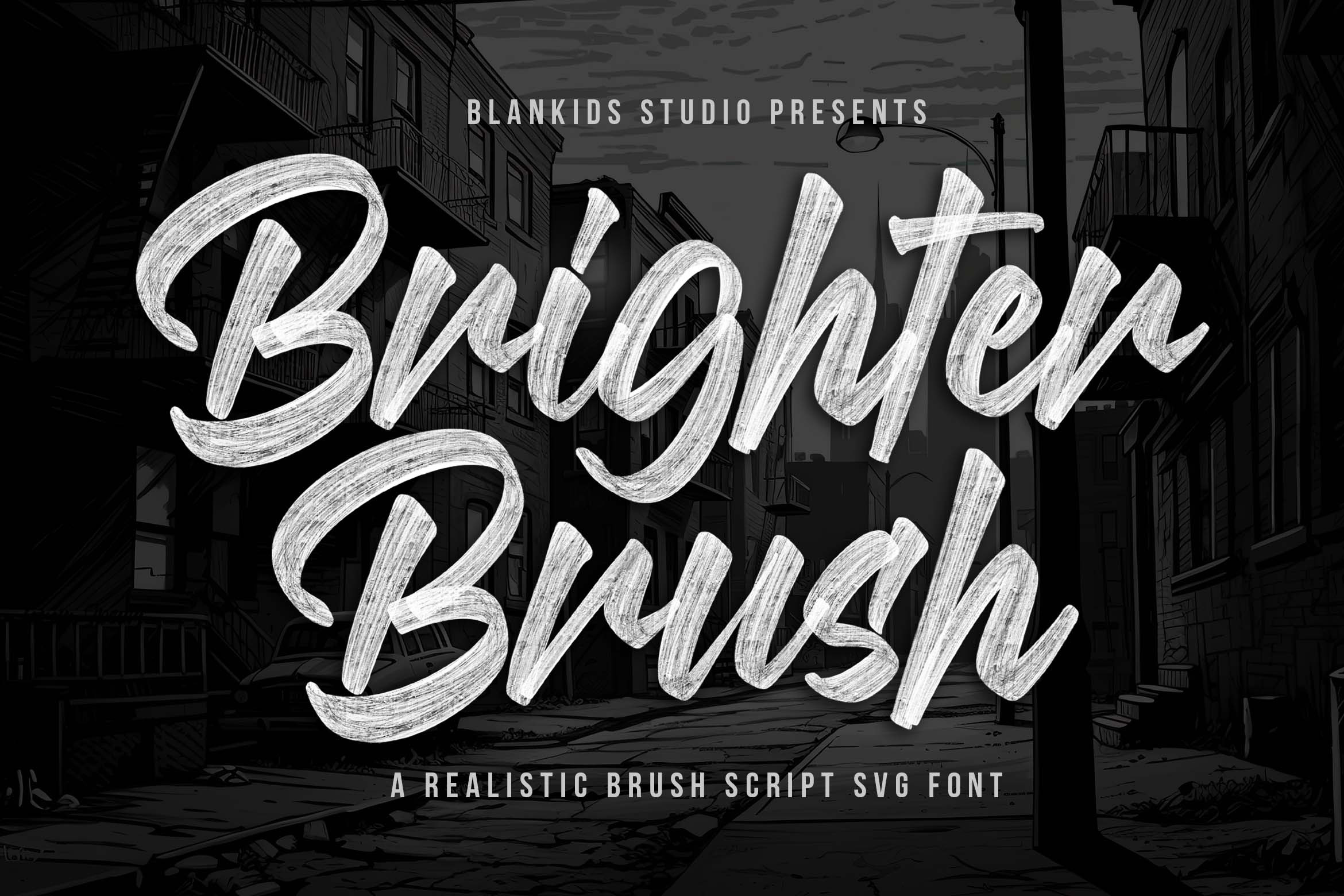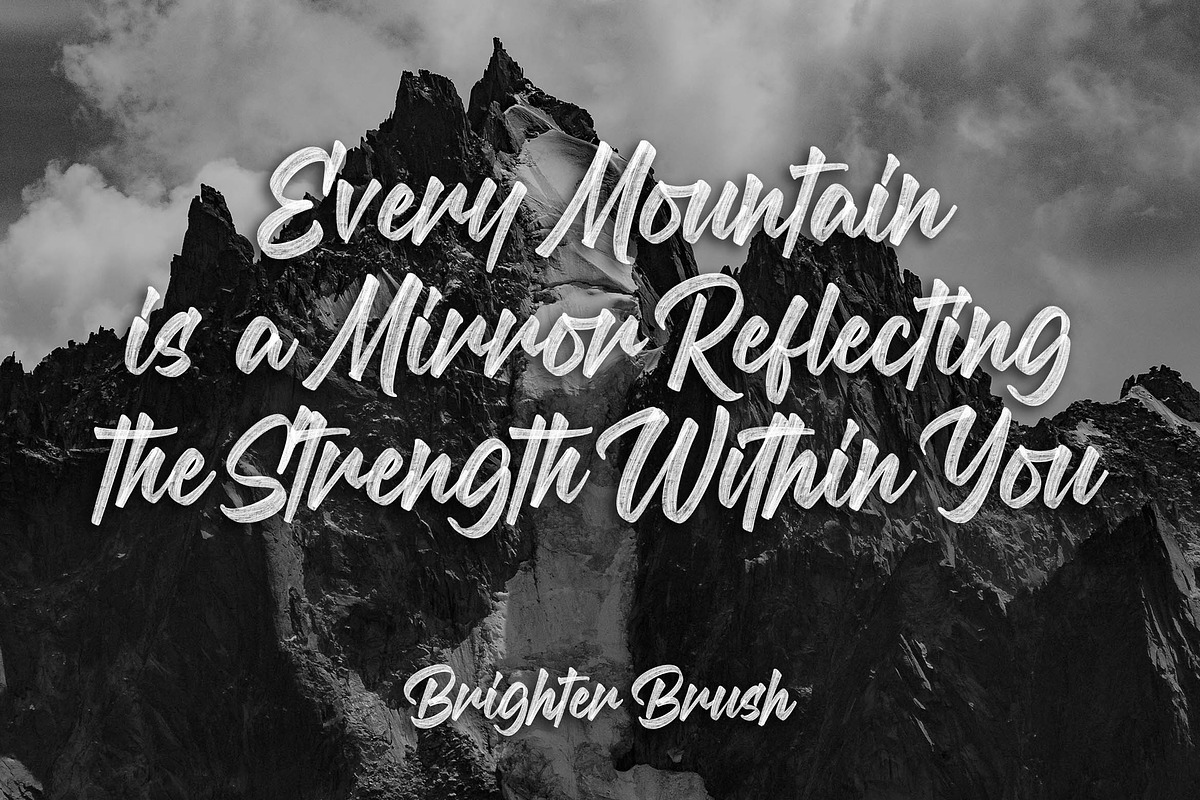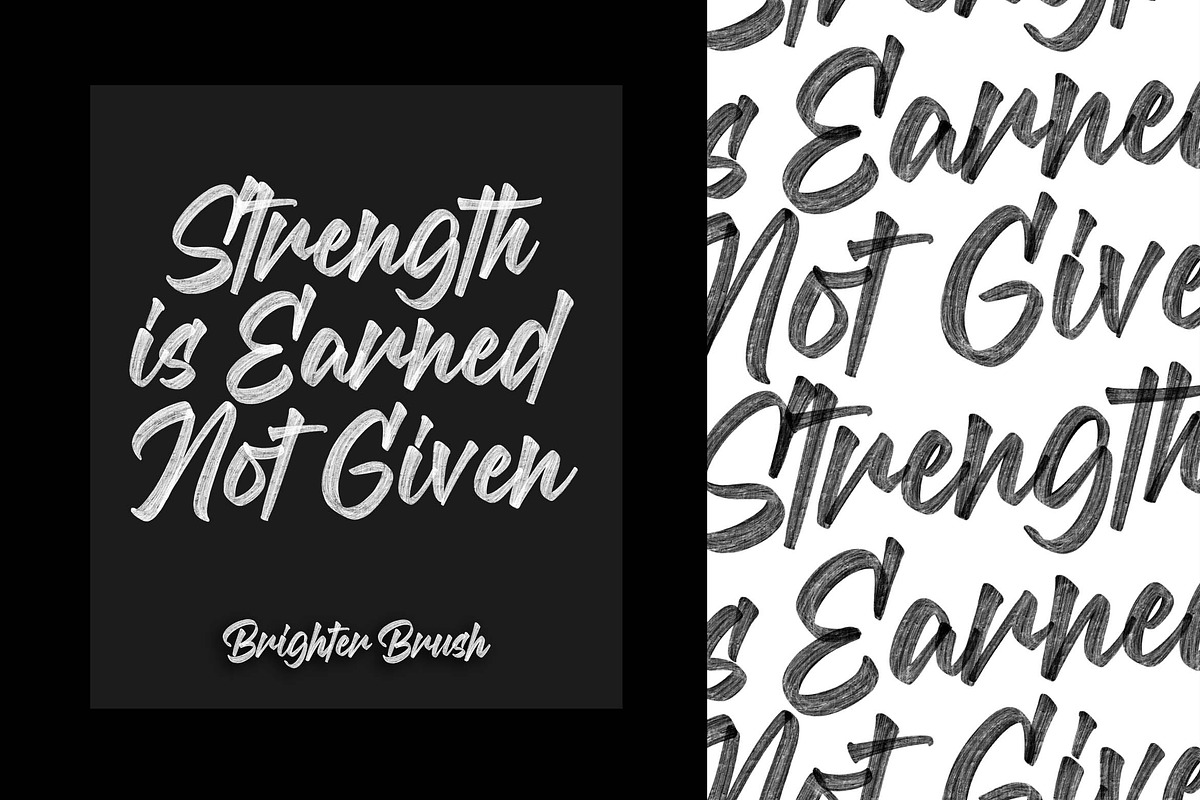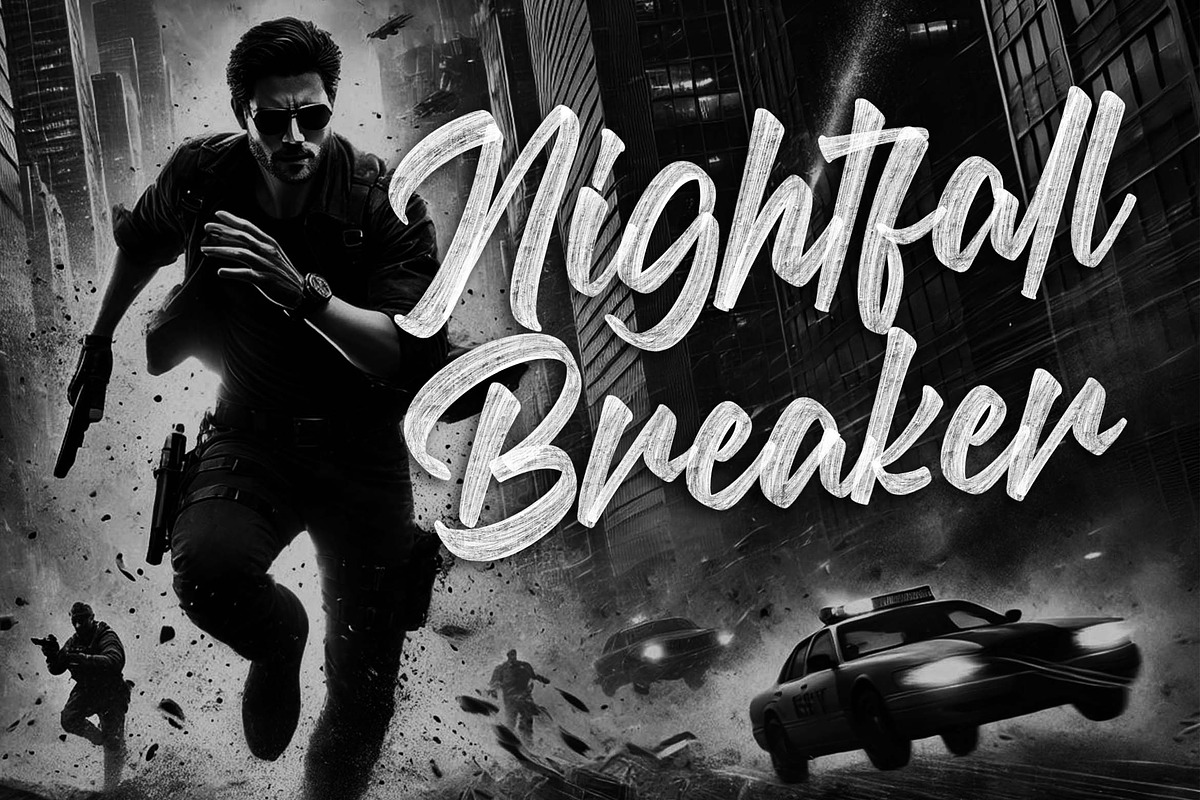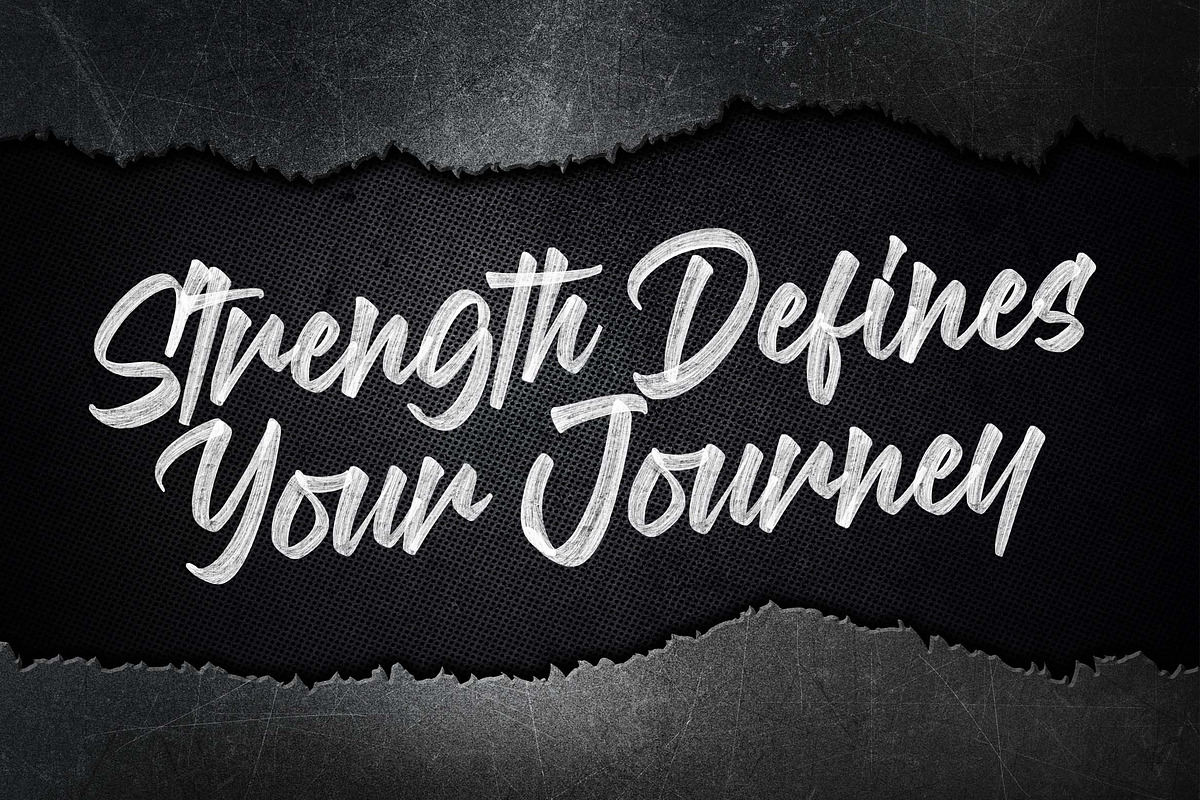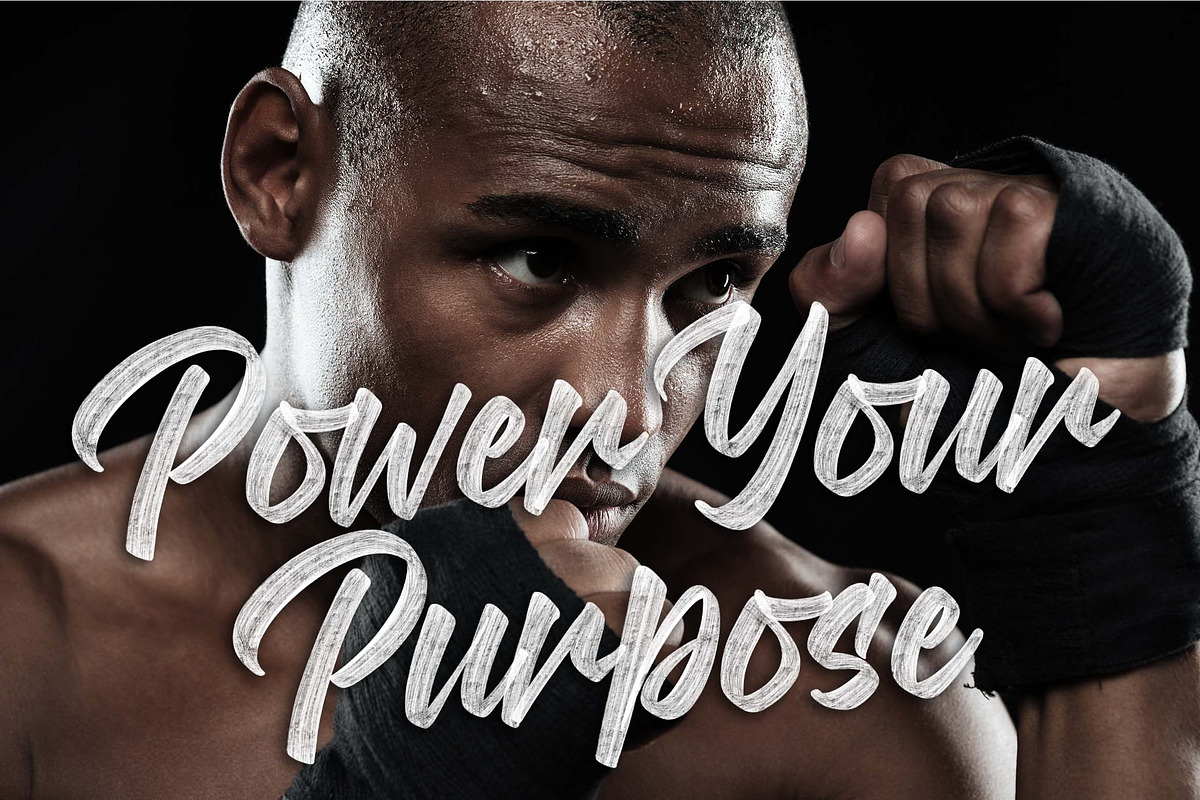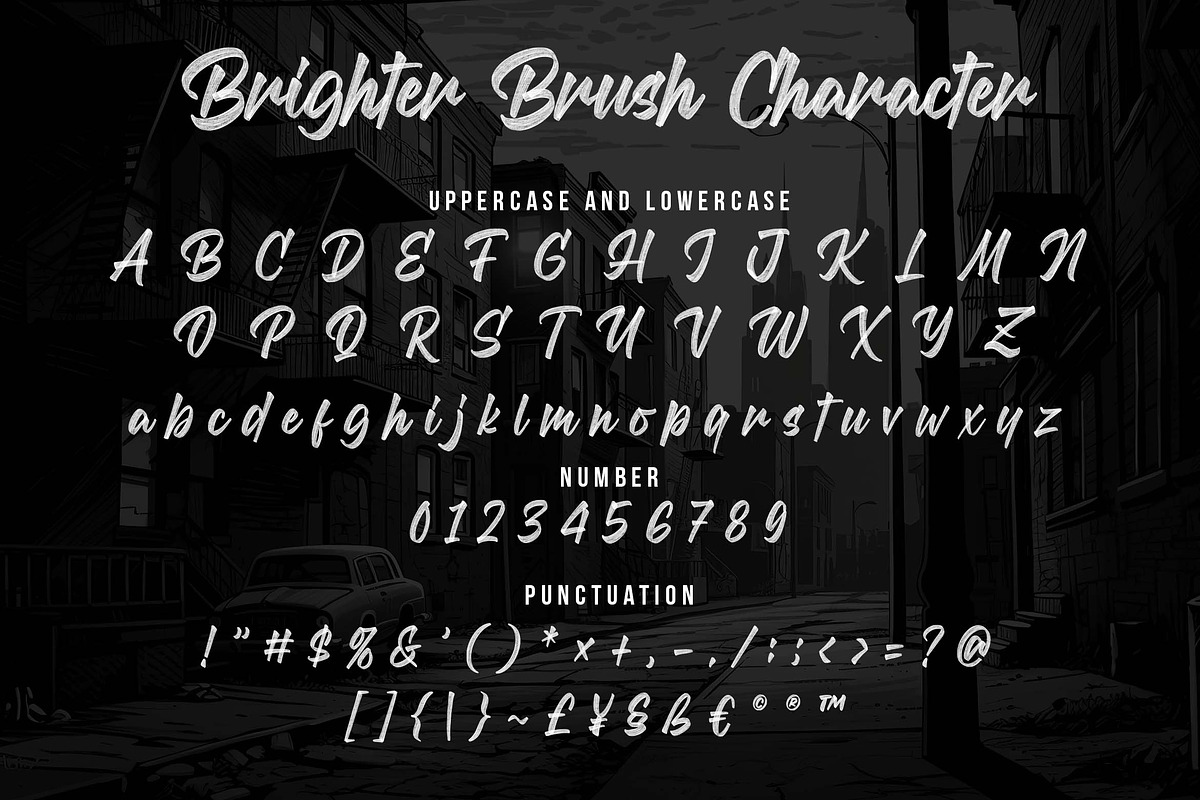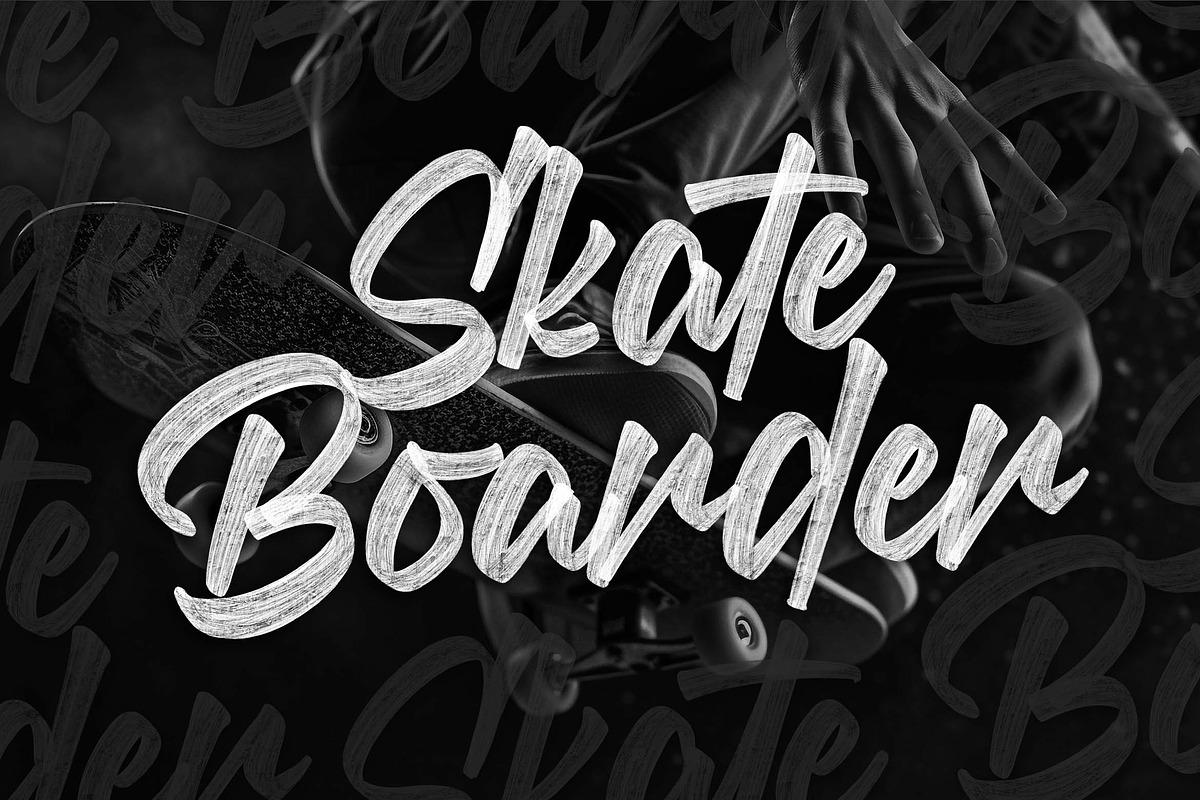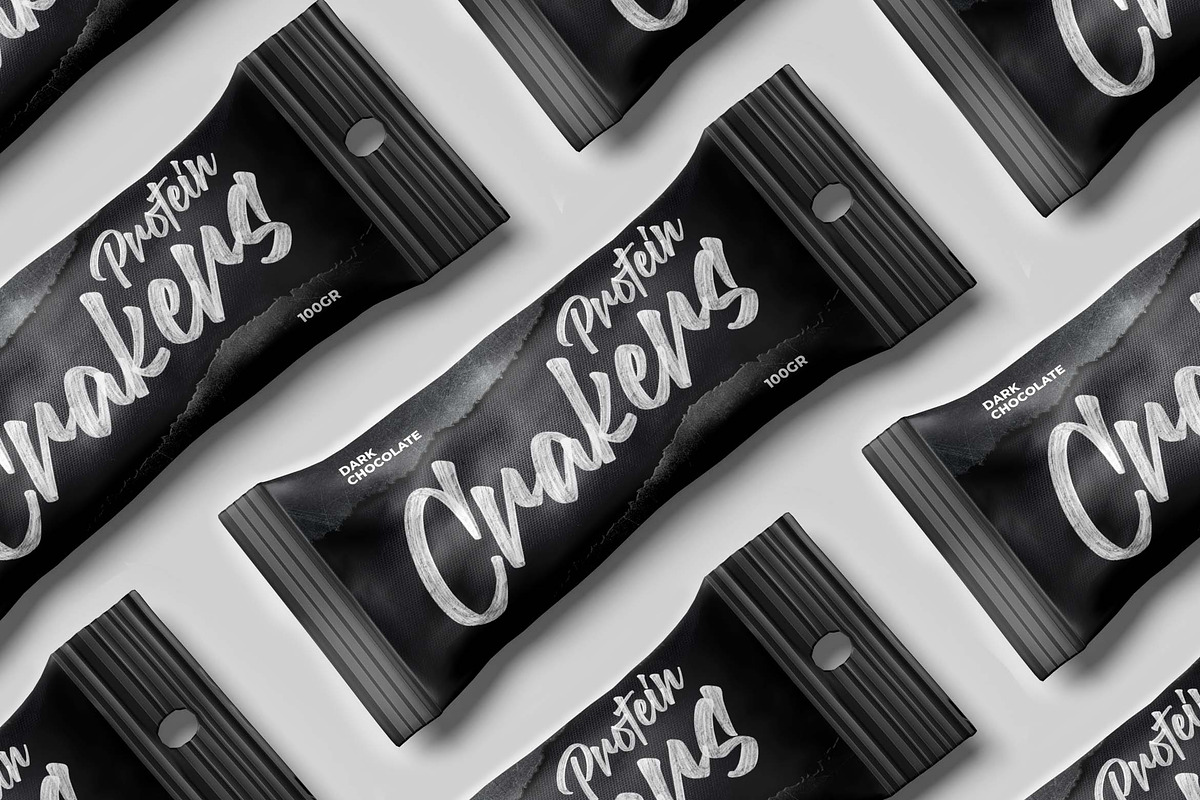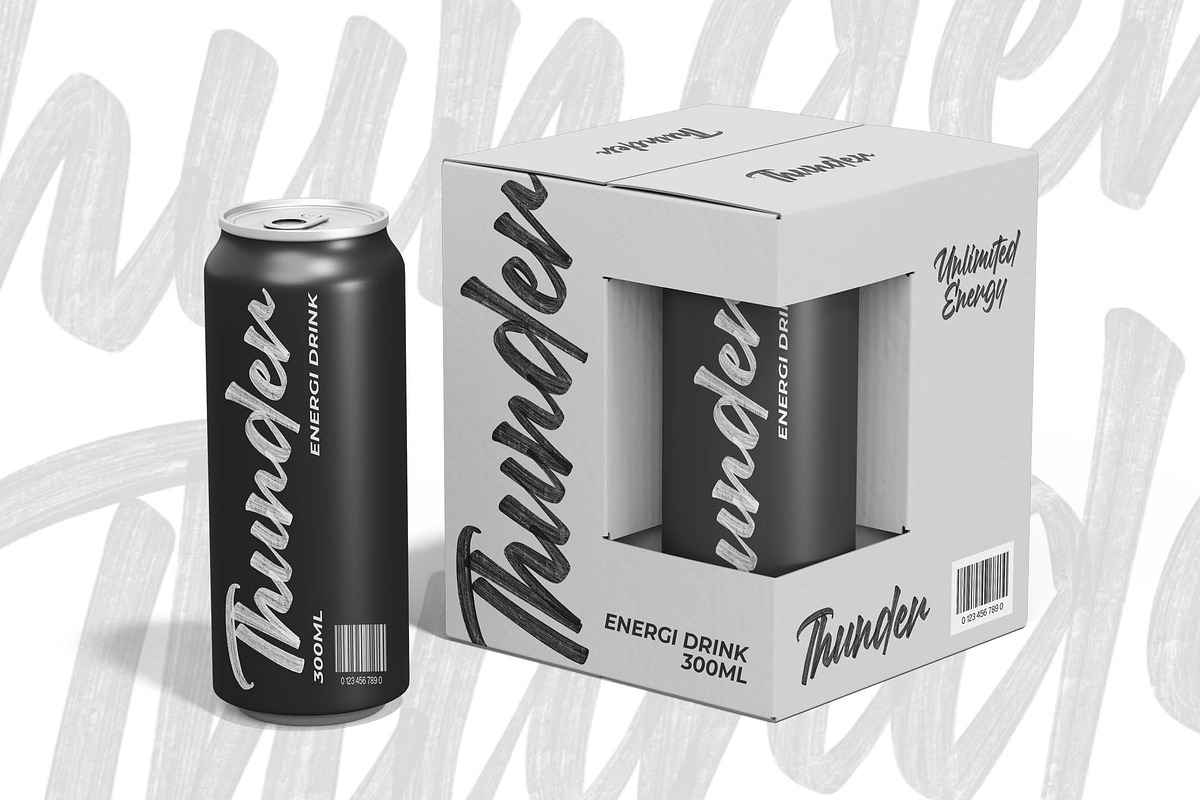
Brighter Brush a Realistic SVG Font
Hello, awesome people! This time, we have a new font called Brighter Brush a realistic brush script font by Blankids Studio.
Brighter Brush, a realistic brush script font is made for any professional project branding, such as logotype, comic, watermarks, poster, branding, promotions, product packaging, etc. Every letter has a realostic brush style.
Brighter Brush font includes a full set of modern clean script uppercase and lowercase letters, numerals and punctuation. This font has a modern script style. See the previews above to get some inspiration on how to use them. Happy designing!